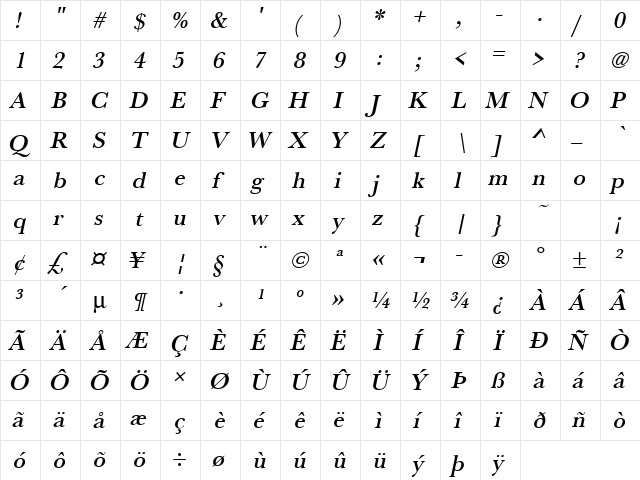
URWBaskerTMed Oblique
Design Context for URWBaskerTMed Typeface
URWBaskerTMed offers clean, dependable letterforms without strong stylistic allegiance, making it a practical choice for designers who need flexibility. The dynamic lean of this cut emphasises speed and emphasis in any layout.
Pro Tip: Use URWBaskerTMed for emphasis, pull quotes, and subheadings where its slanted energy can add rhythm to the layout.